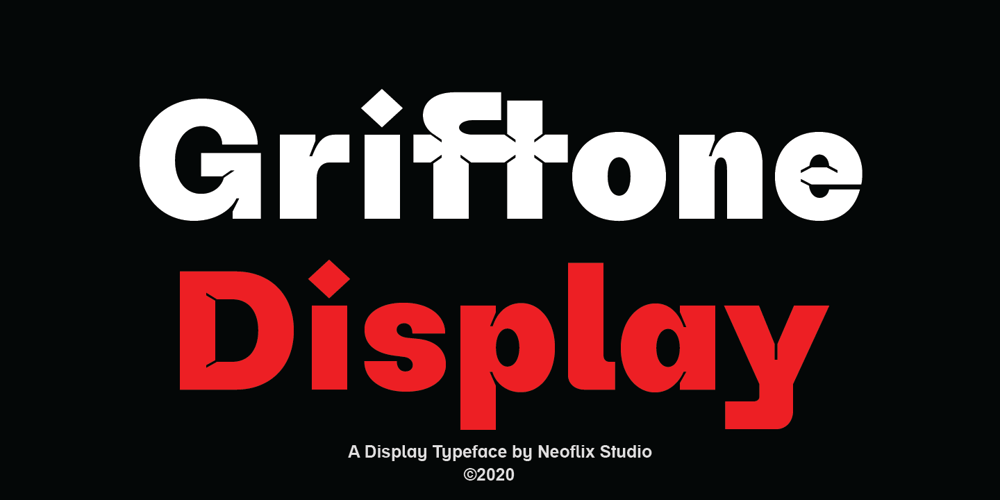
Griftone
Griftone font
Griftone Font Family was designed by Irwan Riswanto and published by Neoflix Studio. Griftone contains 1 styles and family package options. Griftone is a strong and modernist display typeface designed for use in large size. Inspired by style design that is a currently popular. Griftone have some letters and ligatures with an alternative style to facilitate you in determining the letter that fits your design.Griftone is perfect use for headlines, poster, cover books, t-shirt, logotype and all you needs of every idea that you will pour in this modern era.Griftone was build 520 glyphs with numbers, punctuation, symbol and support +75 languages.